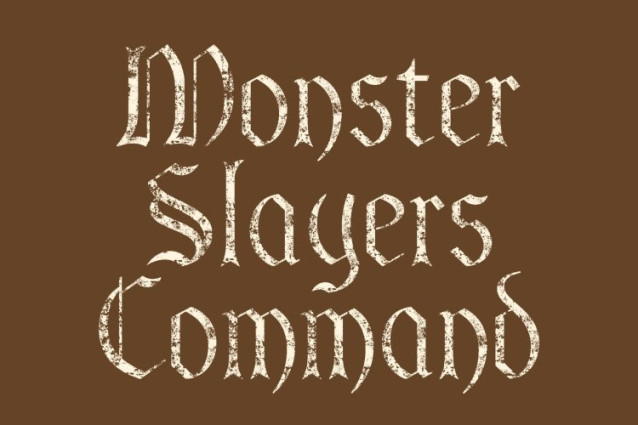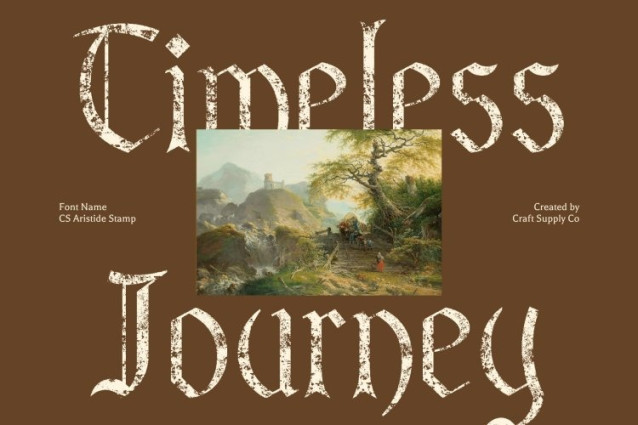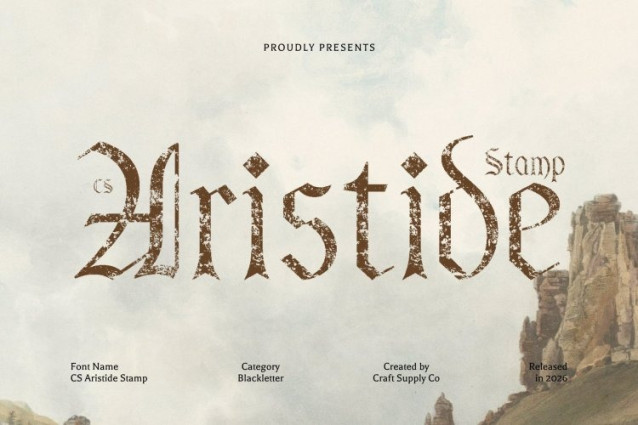
CS Aristide Stamp Font
CS Aristide Stamp Font This is a bold blackletter display font that fuses the dramatic intensity of Gothic calligraphy with a clean, modern sensibility. Sharp angles and commanding strokes are refined through balanced proportions and thoughtful spacing, resulting in a typeface that feels expressive, artistic, and confidently modern.
Strong Structure with Improved Readability
While rooted in traditional blackletter forms, this font adopts smoother outlines and more open shapes to enhance readability. This modern approach preserves the font’s iconic gothic strength while making it suitable for contemporary layouts, headlines, and branding that require clarity without losing visual impact.
Vintage Stamp Texture with Artistic Depth
The stamp effect introduces subtle distress, worn edges, and textured imperfections that give this font an aged, handcrafted character. This vintage texture softens the rigidity of the blackletter forms, adding warmth, authenticity, and an old-world printed feel that elevates its artistic presence.
Bold Choice for Expressive Design Projects
Ideal for music branding, fashion visuals, posters, editorial titles, and experimental layouts, this font delivers a striking gothic voice with modern polish. Its fusion of classic drama, contemporary refinement, and vintage stamp texture makes it a powerful choice for designs that demand bold identity and timeless attitude.